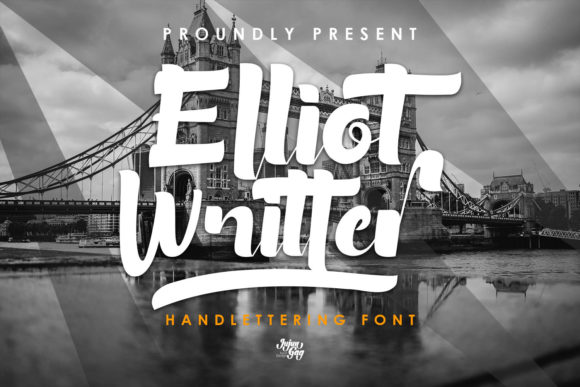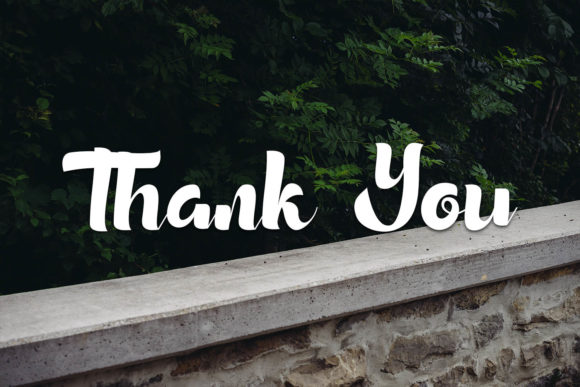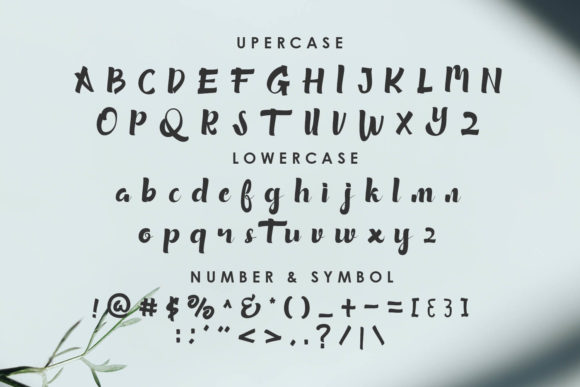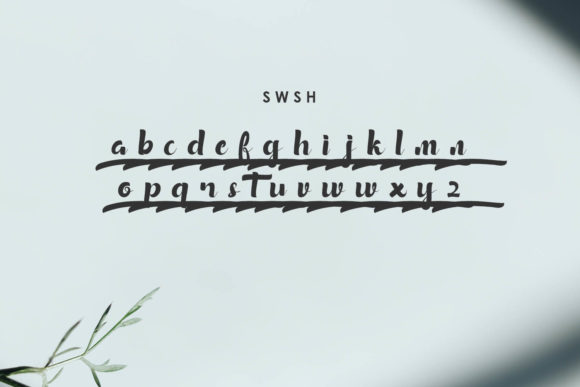
About Elliot Writter Font
Elliot Writter is a modern and incredibly stylish handwritten font. It is PUA encoded which means you can access all of the glyphs and swashes with ease!
Add this bold and classy font to your designs and make them stand out!